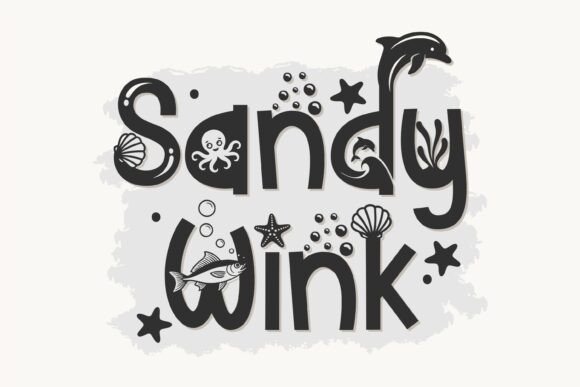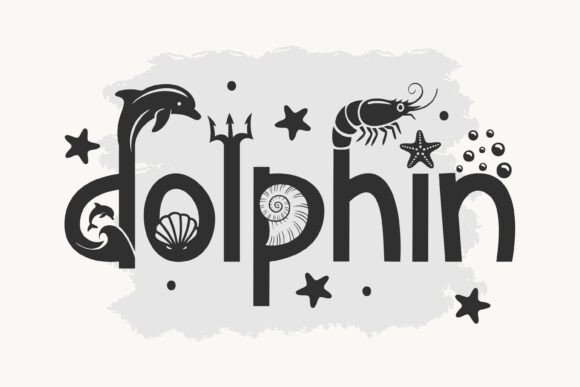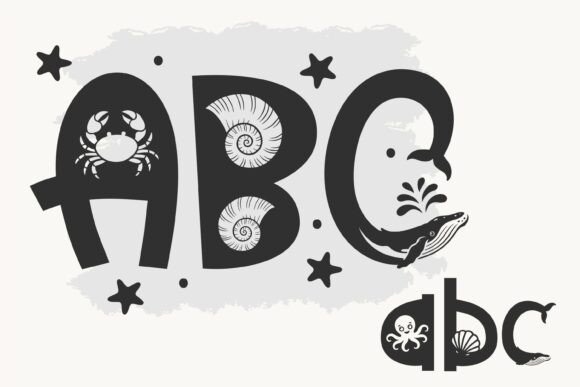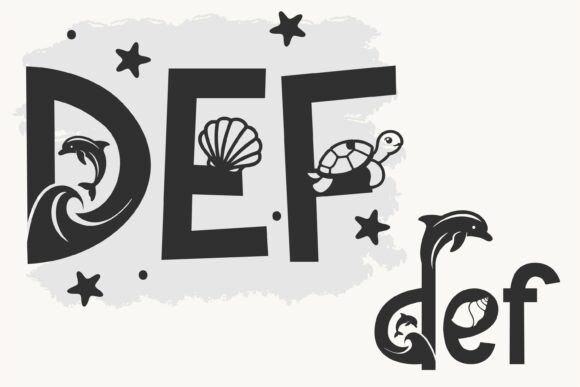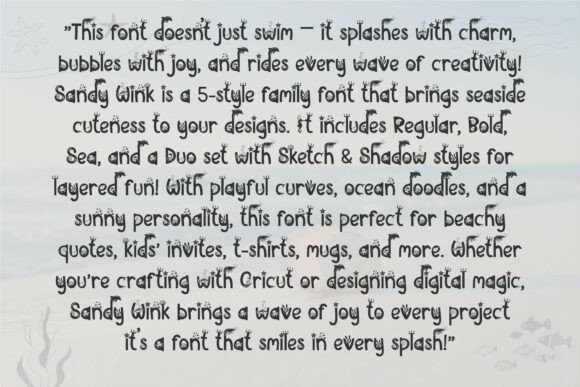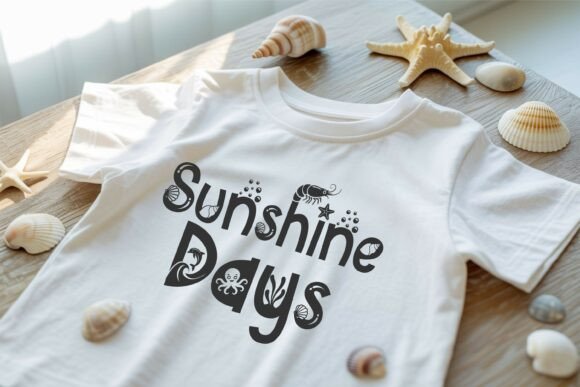
Introduction to Sandy Wink Sea Font
Do you remember the thrill of finding the perfect font to match your creative vision? For designers, that ‘aha’ moment can be a game-changer. It’s the moment when your project comes alive, and your message shines through with clarity and style. For those looking to bring a touch of whimsy and playfulness to their designs, the Sandy Wink Sea Font is sure to be a treasure trove of inspiration.
This spirited, sea-inspired decorative font is a must-have for any designer looking to add a coastal vibe to their creative project. With its bold letterforms, lively curves, and delightful aquatic details, Sandy Wink Sea Font is the perfect design resource for crafting unique and eye-catching designs that are sure to delight.
Key Features of Sandy Wink Sea Font
- High-quality, hand-drawn design suitable for creative projects requiring a unique touch.
- Unique, whimsical style that adds a touch of personality to any design, making it perfect for branding and advertising materials.
- Comes with a comprehensive character set, including uppercase and lowercase letters, numbers, and special characters.
Honest Review: Sandy Wink Sea Font
- High-quality design with a unique, beachy vibe
- Transparency option makes it versatile for design use
However, I do have a few reservations:
- ⚠️ Limited character set may not be suitable for extensive text-based projects
- ⚠️ Not ideal for formal or professional designs due to its playful nature
Overall, I’m impressed with the Sandy Wink Sea Font and would recommend it for creative projects that require a fun, beachy vibe. Just be mindful of its limitations and use it accordingly.
The Sandy Wink Sea Font is a versatile design resource that can be used in a variety of creative projects, including branding, marketing materials, and digital art. Its transparent background makes it easy to use on top of images or other design elements.
Getting the Most Out of the Font
To get the most out of the Sandy Wink Sea Font, be sure to experiment with different sizes, colors, and styles to create unique and eye-catching designs. You can also combine the font with other design elements, such as images or graphics, to create a cohesive and professional look.